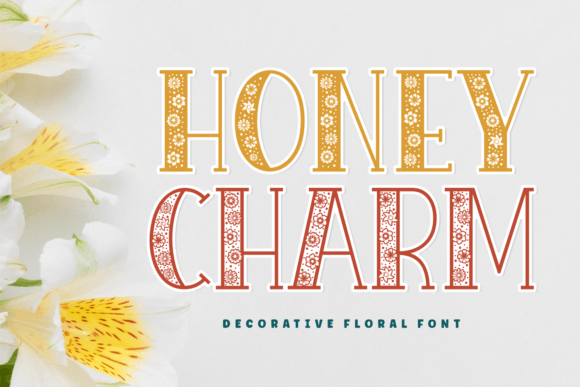
Introducing Honey Charm Font - the enchanting decorative font that will transform your designs into sweet and alluring masterpieces!
Immerse yourself in the captivating charm of Honey Charm, a font brimming with versatility. Its whimsical strokes dance across the page, invoking a sense of warmth and delight. Picture the elegance of wedding invitations adorned with Honey Charm's graceful curves, or the charm of personalized stationery that whispers sweet nothings.
Let social media be your canvas as Honey Charm paints vibrant masterpieces that captivate every scroll. Its playful character shines in eye-catching posts, grabbing attention and leaving an unforgettable impression.
Honey Charm is not just a font; it's a gateway to a world of endless possibilities. Its adaptability knows no bounds, from whimsical posters to enchanting logos. Embrace the magic of Honey Charm today and let your designs bloom with beauty and enchantment!